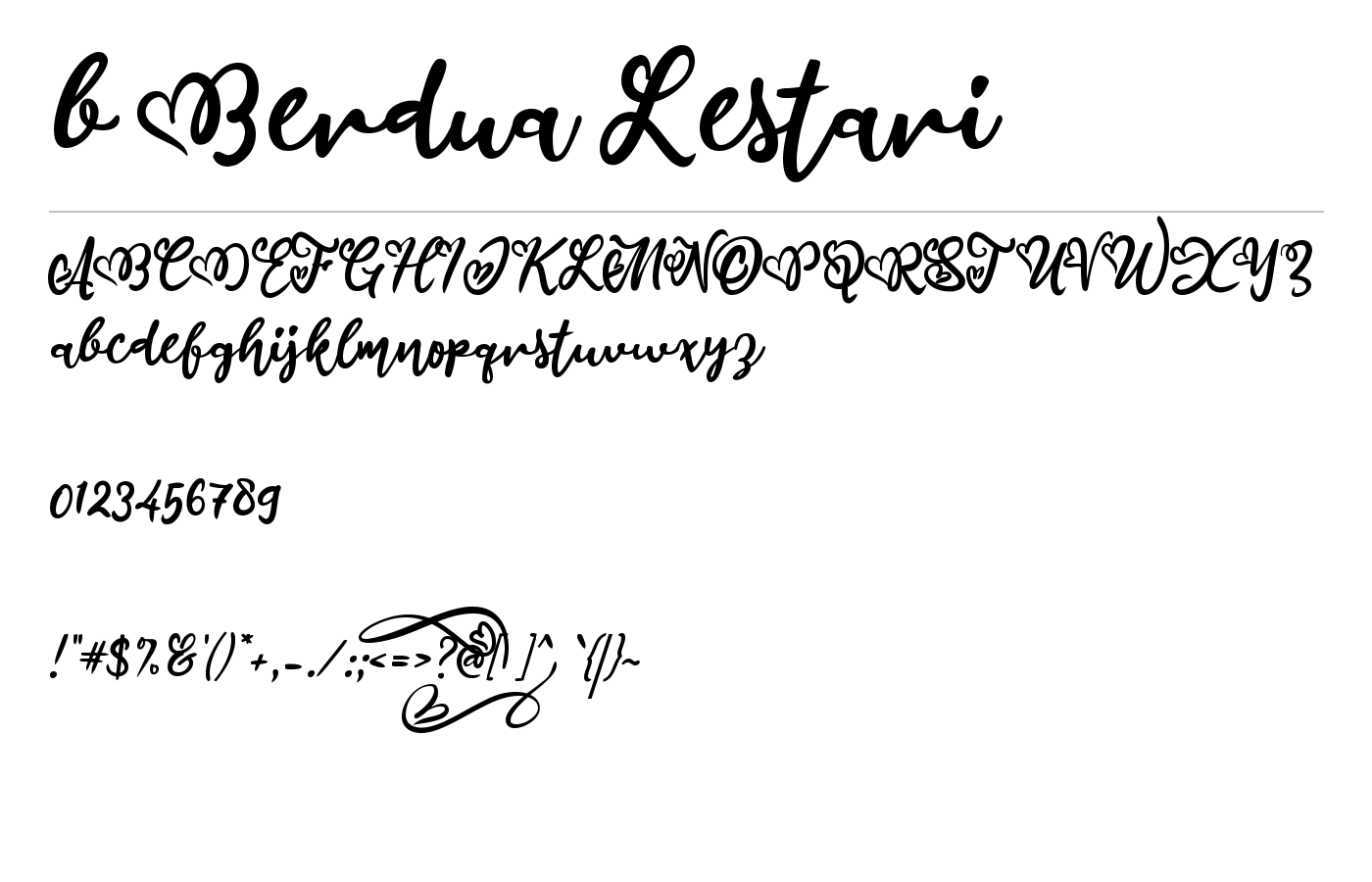
Berdua Lestari is a lively script font that blends playful charm with elegant flair, featuring flowing, hand-drawn letterforms punctuated by whimsical heart motifs in uppercase letters. Its smooth, medium-weight strokes and casual yet refined style make it perfect for romantic, creative, or feminine branding, invitations, and social media designs where a personal and warm touch is desired. This font shines in headline use or decorative accents, adding a unique and friendly personality to any project.
b Berdua Lestari Font